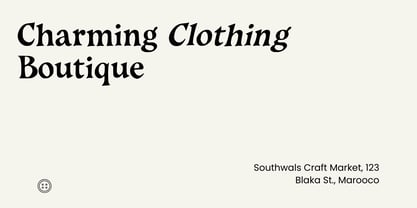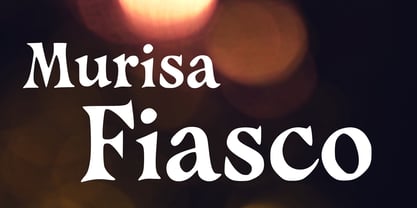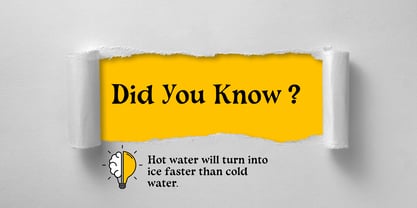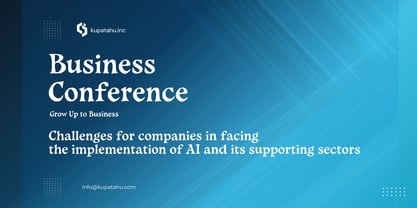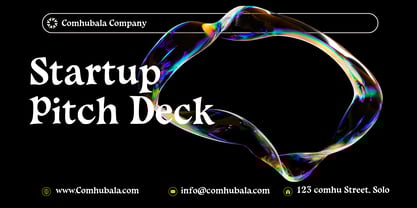
Murisa Fiasco
by Murisa Studio
The Murisa Fiasco Font Family was designed by Lili Sadili and published by Murisa Studio. Murisa Fiasco contains 2 styles and family package options.
💥 Murisa Fiasco — Where Elegance Meets Rebellion Step into a world where classical refinement collides with unapologetic flair. Murisa Fiasco is not just a typeface—it’s a statement. Designed for creators who demand originality, this font dances between tradition and disruption, offering a visual rhythm that’s bold, expressive, and unmistakably high-end. 🖋️ Features that Set It Apart A full alphabet with meticulously crafted glyphs that balance ornamental charm with modern clarity Distinctive capital forms, including a stylized “R” that adds signature flair to any composition Seamless support for Eastern European languages, expanding your creative reach across borders Numerals that echo the sophistication of vintage signage with a contemporary twist 🎨 Perfect For Luxury branding, editorial headlines, avant-garde packaging, and any project that demands prestige with personality. Whether you’re designing for fashion, art, or high-impact marketing, Murisa Fiasco delivers visual drama with professional precision. ✨ Why Designers Love It Every curve, serif, and stroke has been obsessively refined to ensure consistency, legibility, and aesthetic impact. It’s a font that doesn’t whisper—it roars
Designers: Lili Sadili
Publisher: Murisa Studio
Foundry: Murisa Studio
Design Owner: Murisa Studio